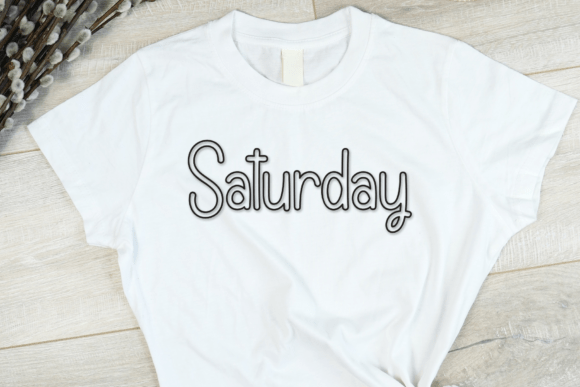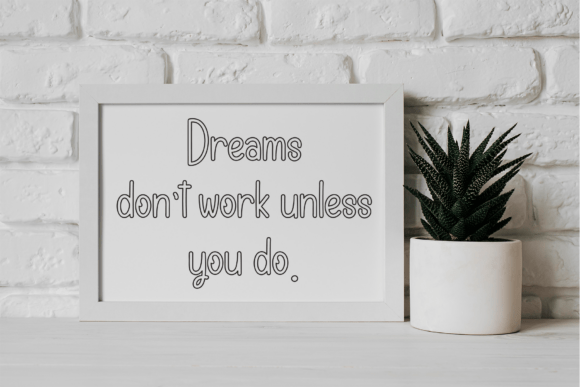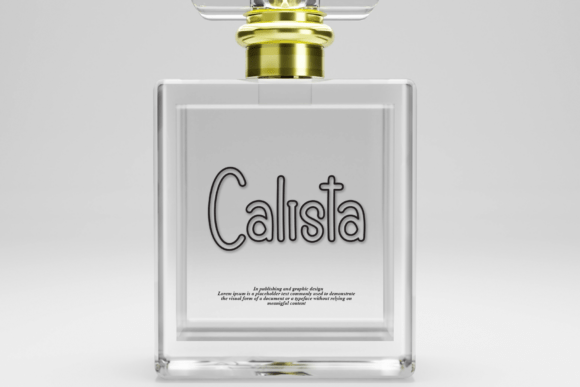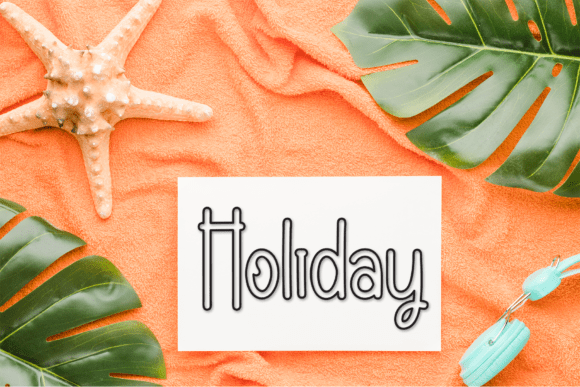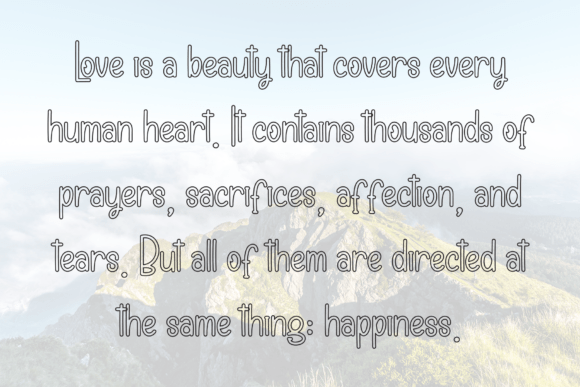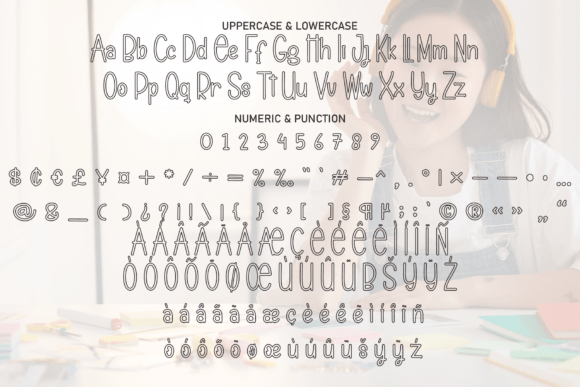
Introducing Hello Designer Font: The Perfect Blend of Clarity and Relaxed Style
Are you on the hunt for a font that embodies the perfect balance of modern sophistication and laid-back charm? Look no further than the Hello Designer Font. This neat and casual display font is specifically designed to bring a friendly, approachable vibe to your design projects, making it an excellent choice for headlines, posters, packaging, and branding.
Clean Lines, Friendly Letterforms
One of the standout features of the Hello Designer Font is its clean lines and friendly letterforms. The font’s designer has carefully crafted each character to ensure that it is not only visually appealing but also highly legible. This makes it perfect for use in a variety of design applications, from bold headlines to detailed body copy.
The clean lines and simple shapes used in the Hello Designer Font give it a modern feel that is instantly recognizable. Yet, despite its contemporary look, the font also manages to convey a sense of warmth and approachability. This is thanks to the subtle rounded edges and gentle curves that soften the overall appearance of the letterforms.
The versatility of the Hello Designer Font is one of its greatest strengths. Its unique blend of style and readability makes it suitable for a wide range of design applications, including:
- Headlines: The font’s bold, attention-grabbing letterforms make it perfect for use in headlines and titles.
- Posters: The Hello Designer Font is ideal for use in posters, flyers, and other promotional materials.
- Packaging: The font’s clean lines and friendly letterforms make it a great choice for product packaging.
- Branding: The font’s modern yet laid-back vibe makes it perfect for use in branding and identity design.
A Balanced Structure with Playful Energy
The Hello Designer Font features a balanced structure that gives it a sense of stability and reliability. At the same time, the font also has a playful energy that makes it feel approachable and engaging. This balance of contrasting elements is what sets the Hello Designer Font apart from other display fonts.
The font’s balanced structure is achieved through the careful use of negative space and subtle visual cues. The letterforms are spaced evenly, with a consistent x-height and cap height that gives the font a sense of cohesion.
Bringing Personality to Your Designs
The Hello Designer Font is designed to bring personality to your designs without overwhelming the message. Its unique blend of style and readability makes it perfect for use in designs that call for both flair and clarity.
Whether you’re working on a branding project, designing a poster, or creating packaging, the Hello Designer Font is a great choice. Its friendly, approachable vibe makes it perfect for designs that need to connect with the audience on a personal level.
Why Choose the Hello Designer Font?
So why choose the Hello Designer Font for your next design project? Here are just a few reasons:
- Unique style: The Hello Designer Font has a unique style that sets it apart from other display fonts.
- High legibility: The font’s clean lines and simple shapes make it highly legible, even at small sizes.
- Versatility: The font is suitable for a wide range of design applications, from headlines to body copy.
- Playful energy: The font’s playful energy makes it perfect for designs that need to connect with the audience on a personal level.
In conclusion, the Hello Designer Font is a fantastic choice for designers and crafters who need a font that embodies the perfect balance of modern sophistication and laid-back charm. Its clean lines, friendly letterforms, and balanced structure make it perfect for a wide range of design applications. So why not give it a try and see how it can bring personality to your next design project?